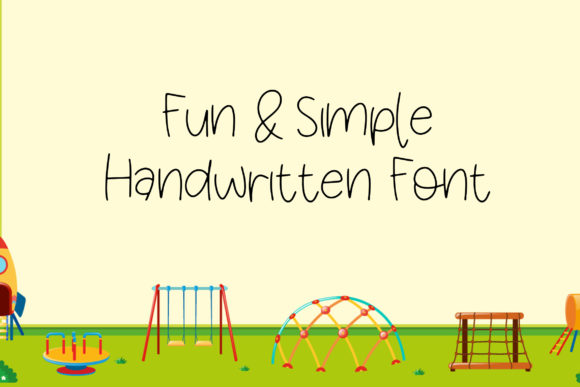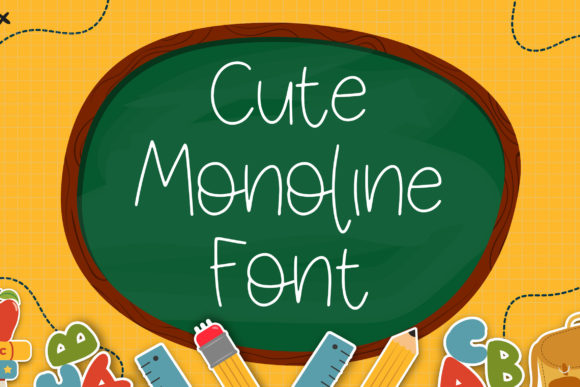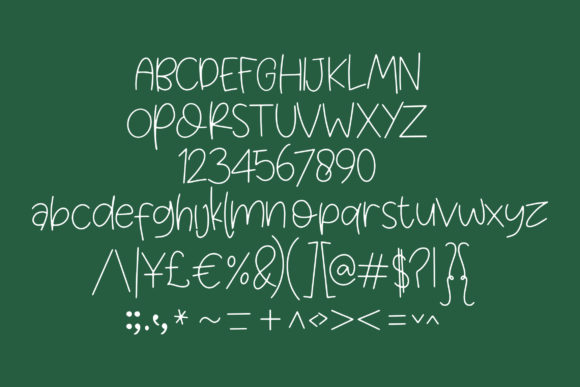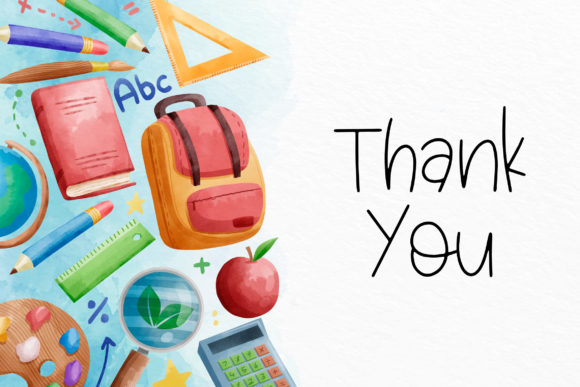
Getting Back to Basics: The Chalkboard Charm of the Back to School Font
As a designer, there’s nothing quite like the rush of creating something from scratch – the blank slate, the endless possibilities, and the thrill of watching your idea come to life. For many of us, it starts with a simple sketch or a scribble on a notepad, and it’s in these moments that the magic happens. But what if you could capture that same essence of creativity and bring it to life in your digital designs?
Enter the Back to School Font, a beautiful, thin-lettered handwritten font that’s tailor-made for creating authentic chalkboard quotes and teaching materials. Its unique look and feel will add a personal touch to your designs, making them stand out from the crowd. Whether you’re a student, a teacher, or simply a lover of all things educational, this font is a must-have in your design arsenal. With the Back to School Font, you’ll be able to create eye-catching graphics that will transport your audience back to the good old days of chalkboard learning.
Back to School Font Key Features
- Font Family: Back to School Font is a unique, handwritten font designed for educational purposes.
- Unique Characteristics: The font features a playful, cursive style with a mix of uppercase and lowercase letters, making it perfect for creating eye-catching educational materials and promotional content.
Back to School Font Review
As a designer, I was excited to dive into the “Back to School Font” and see what it had to offer. On the surface, the font is a cute and playful take on a classic script style. I love how it incorporates subtle nods to educational elements, like pencils and books, into the design.
Here are some things that I think work well about this font: ✨ It’s perfect for creating fun, lighthearted designs, like social media graphics or party invitations. ✨ The font is highly customizable, with a range of color options and layout possibilities. ✨ It’s also relatively easy to read, even at smaller font sizes.
However, there are a few limitations to consider: ⚠️ The font may be too “cute” for some projects, which could make it difficult to use in more professional or serious contexts. ⚠️ Some of the educational elements, like the pencils and books, can feel a bit forced or cheesy. ⚠️ The font may not be as versatile as some other script styles, which could limit its use in certain design projects.
Overall, I think the “Back to School Font” is a fun and playful addition to any designer’s toolkit. While it may not be the most versatile font, it’s perfect for projects that need a lighthearted, educational vibe.
For the most impact, use the Back to School Font for headings, titles, and attention-grabbing text. It’s perfect for:
– School projects and presentations
– Marketing materials for educational institutions
– Summer camp or workshop promotions